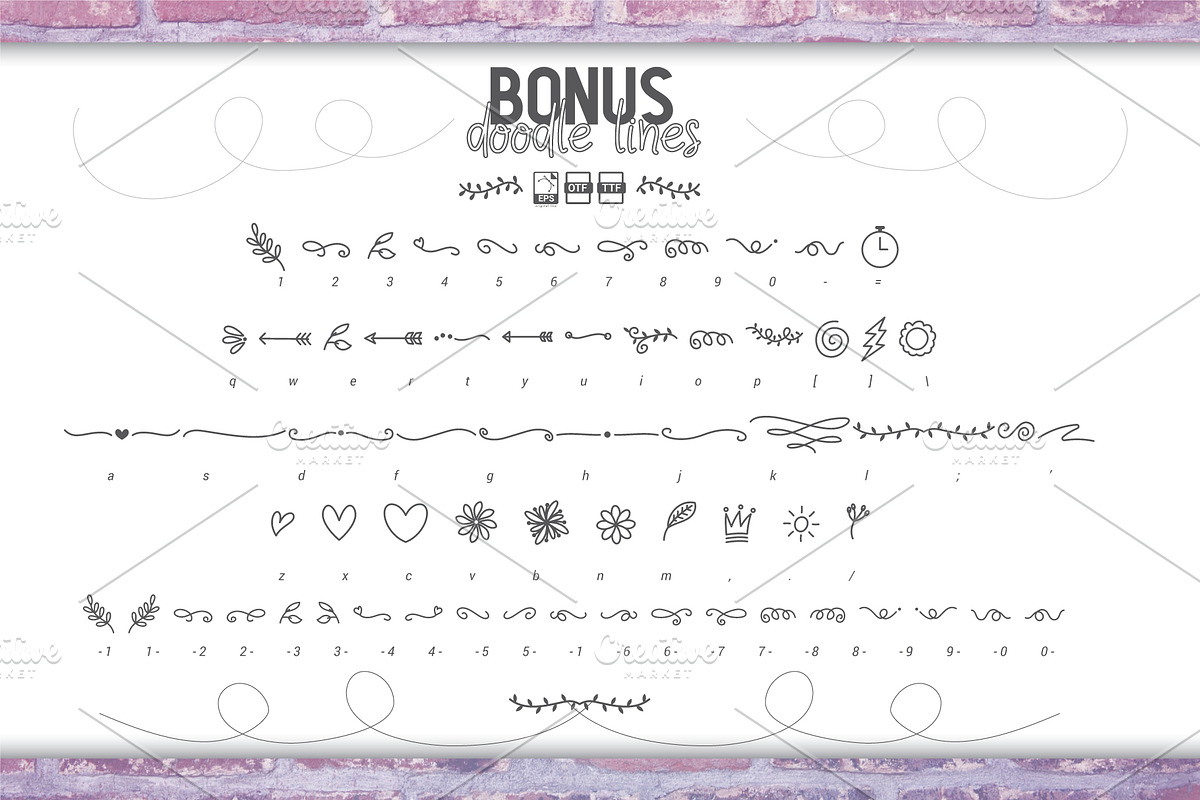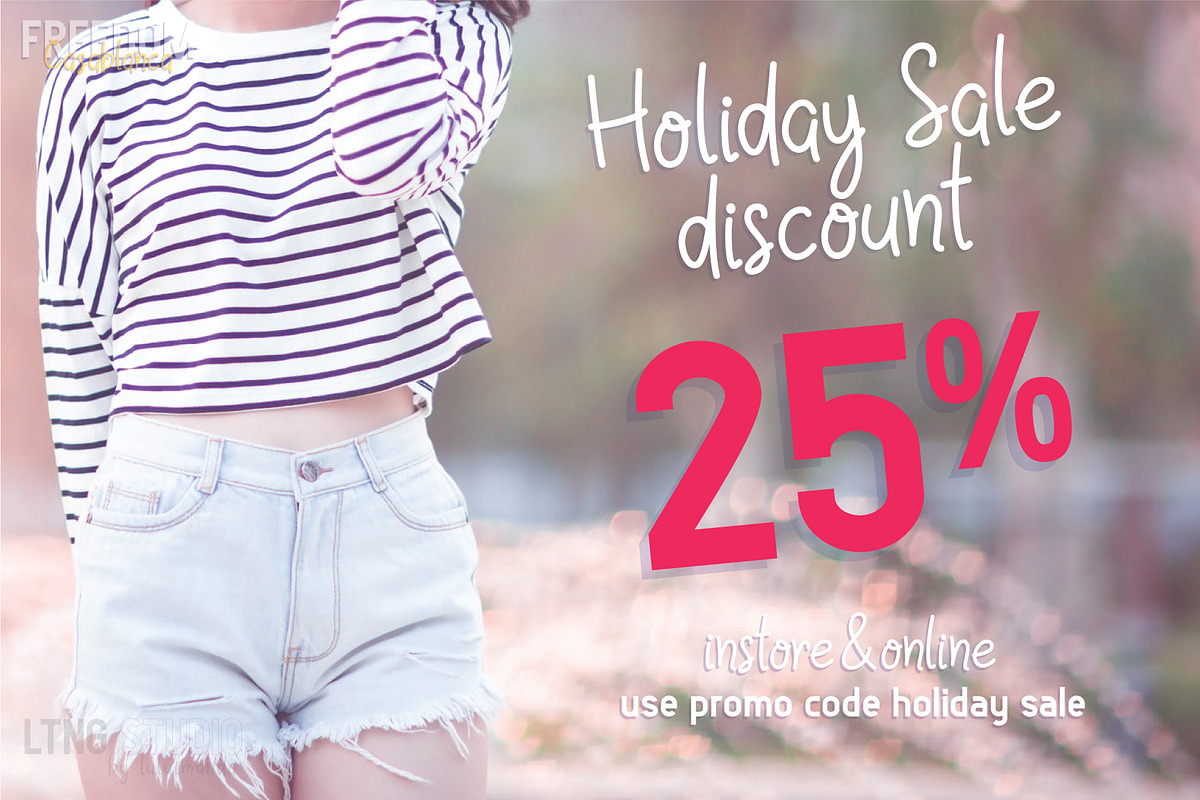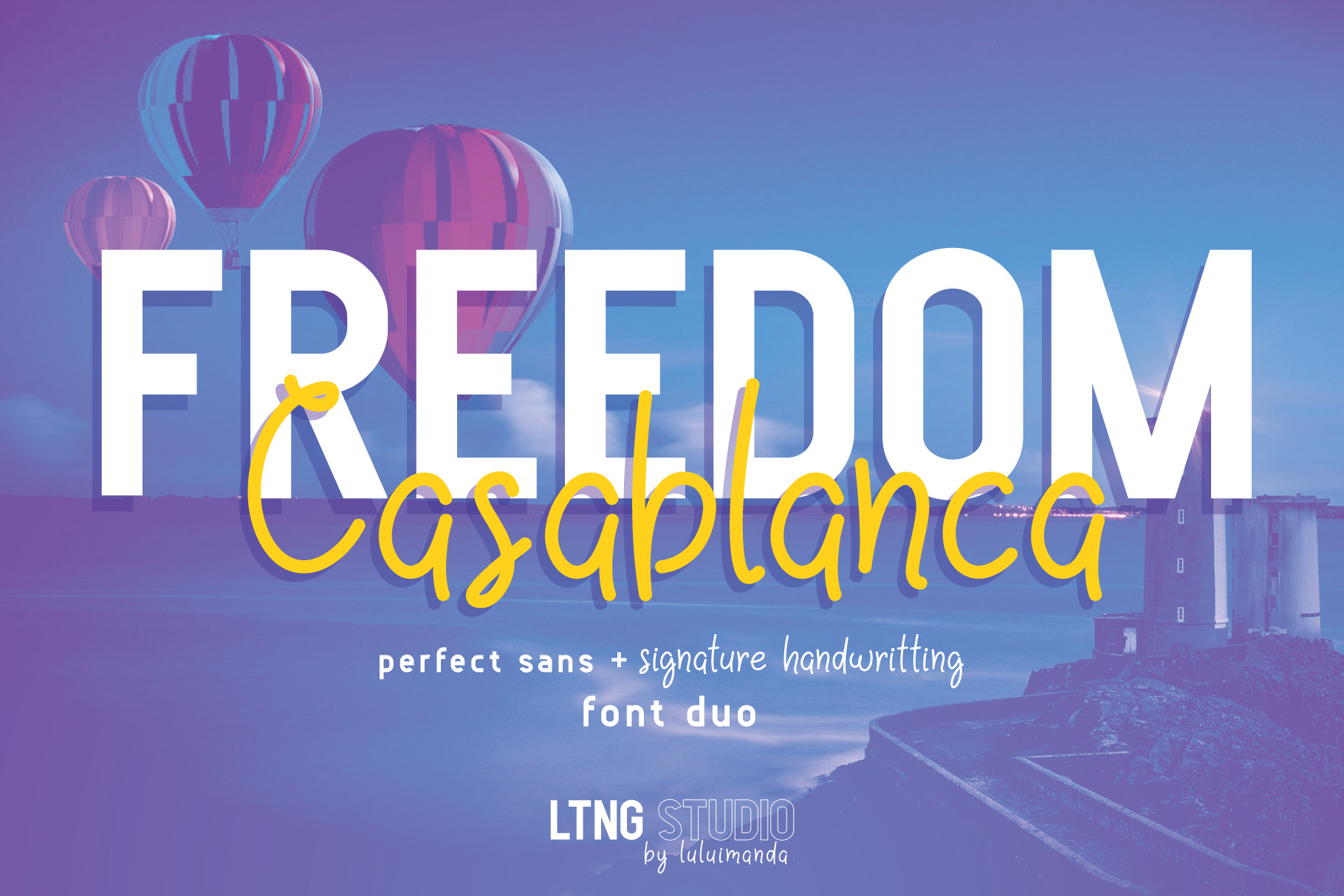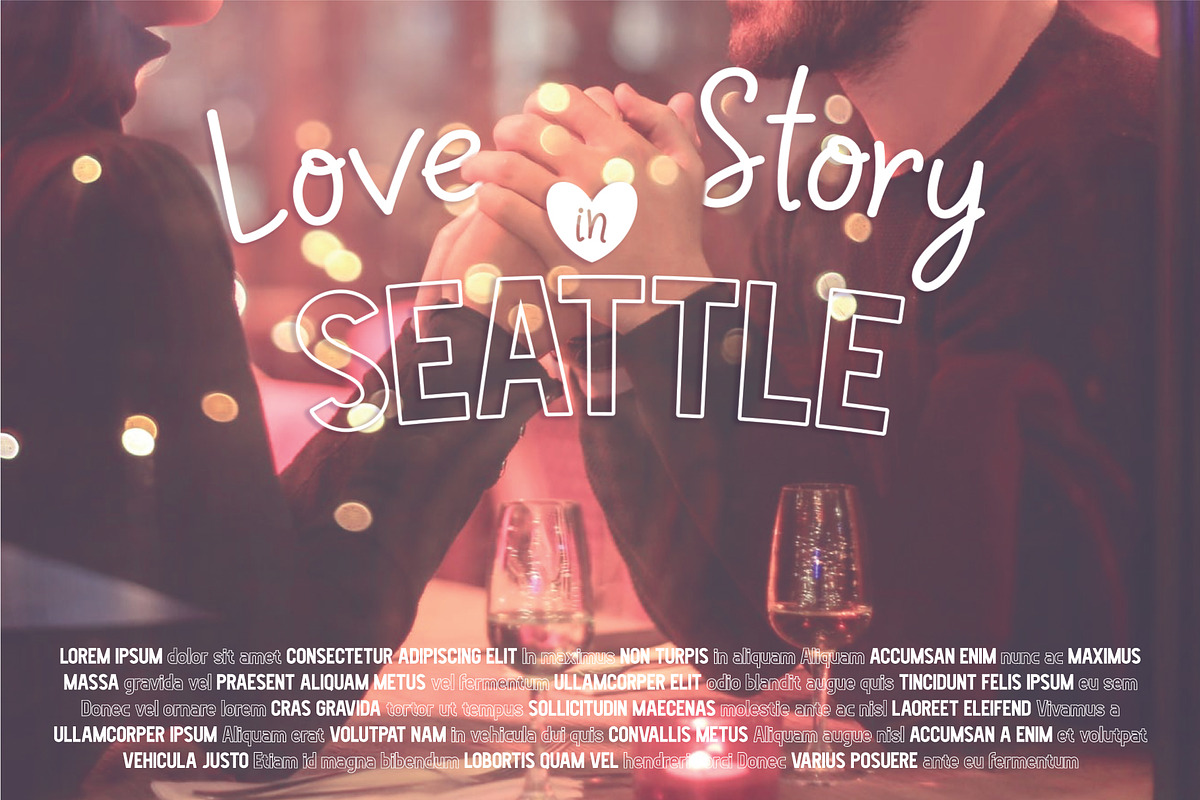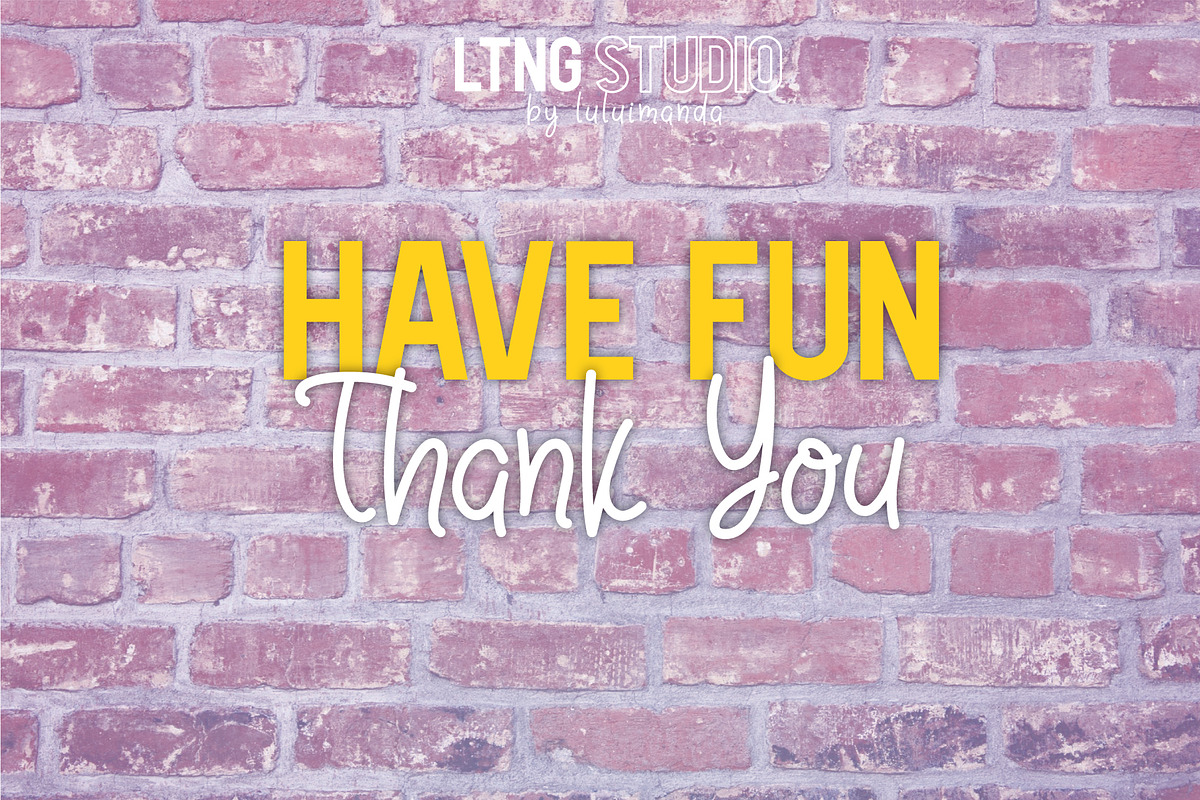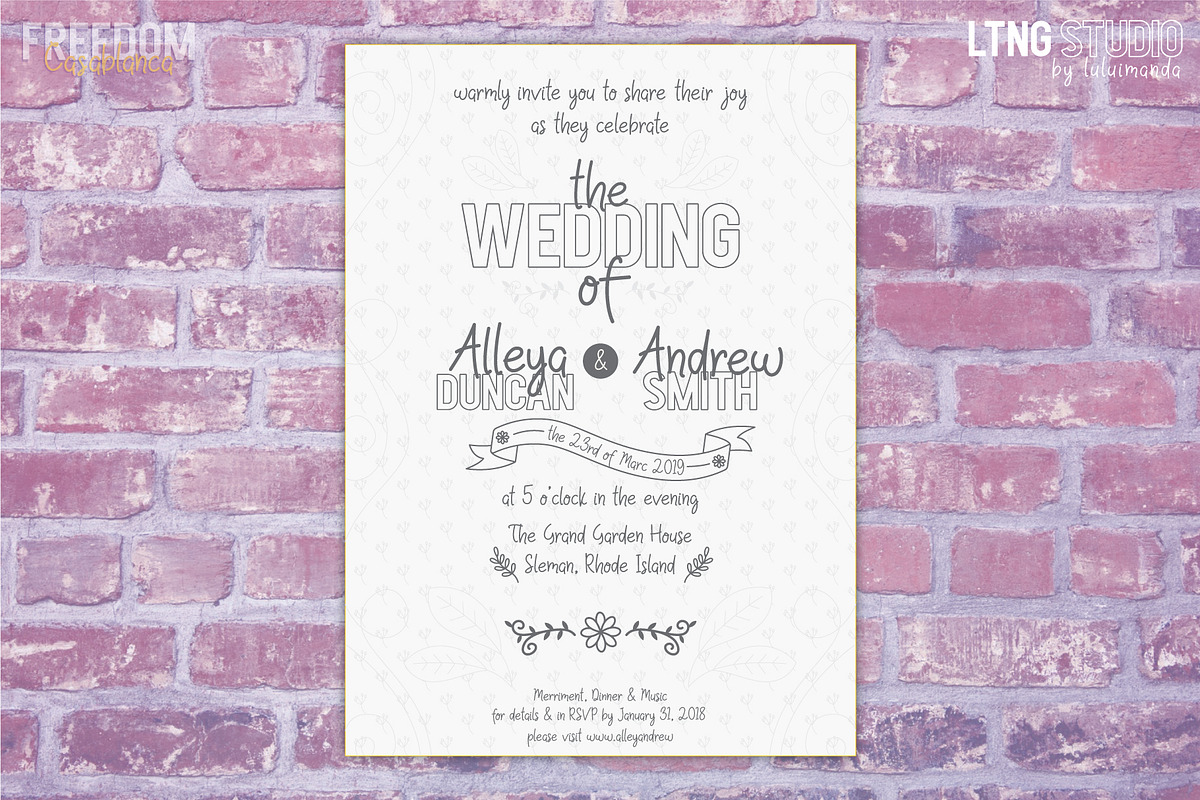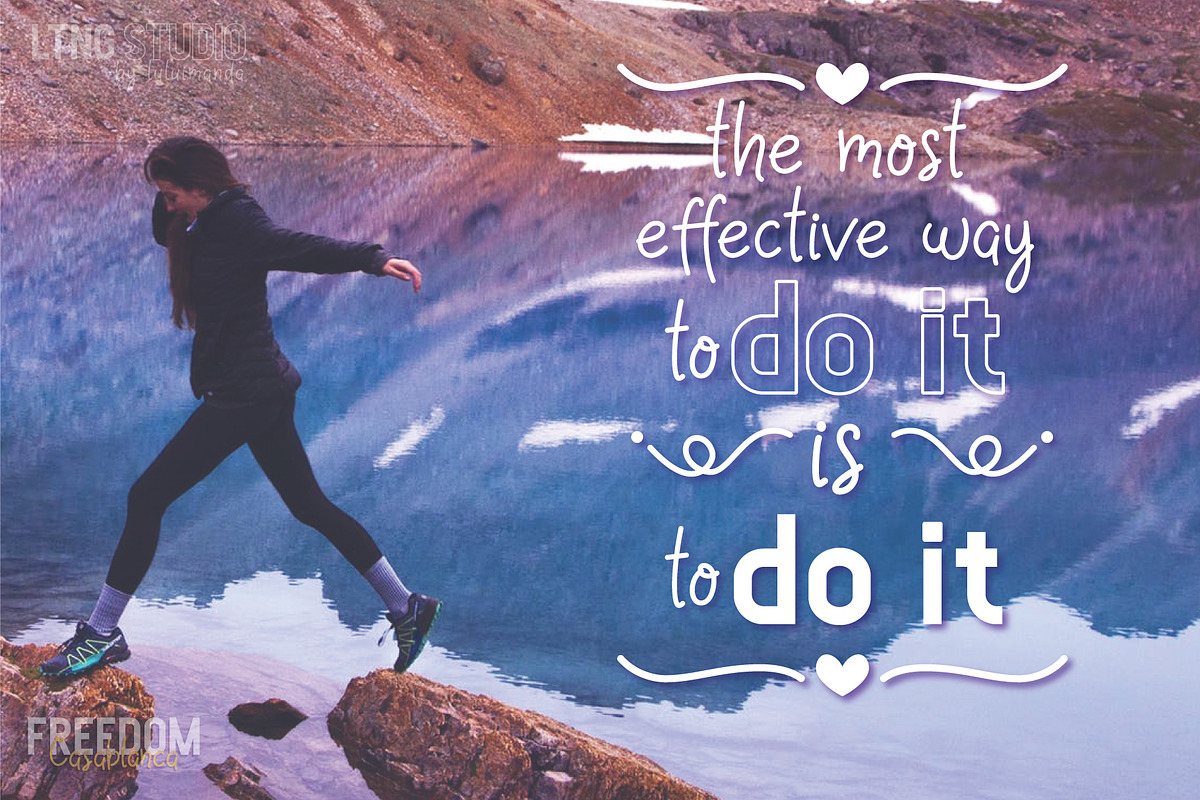
FREEDOM Casablanca font duo
FREEDOM Casablanca, Introducing the FREEDOM Casablanca, a unique font duo bold perfect boldy sans and signature handwriting. With a various font styles. FREEDOM Casablanca is unique typographic and perfect match for a diversity of design project, including wedding design, advertisements, product designs, logos, signature logo name, and brandings. Even this font duo are perfect to combine but each font can use as stand alone font.
- FREEDOM boldy sans : This is a boldy sans font with 2 various type regular and outline (otf & ttf)
- Casablanca signature handwriting : Unique signature handwriting with various ligatures and alternates for end of word characters. Some of ligatures are standard ligatures (otf & ttf)
- Casablanca doodles : is unique various doodles lines in otf also in EPS (eps in two types converted and line).
- Fonts include multilingual support for Afrikaans, Albanian, Estonian, Faroese, Filipino, Finnish, French, German, Icelandic, Indonesian, Irish, Italian, Malay, Portuguese, Spanish, Swedish.